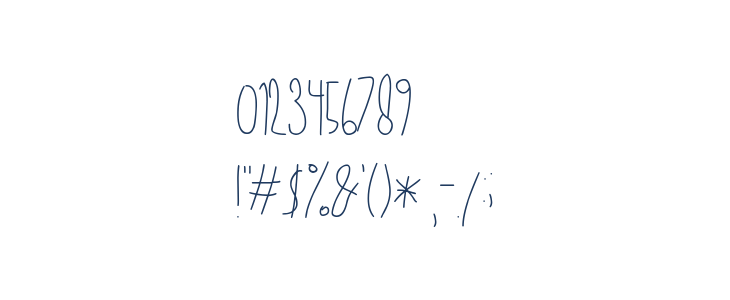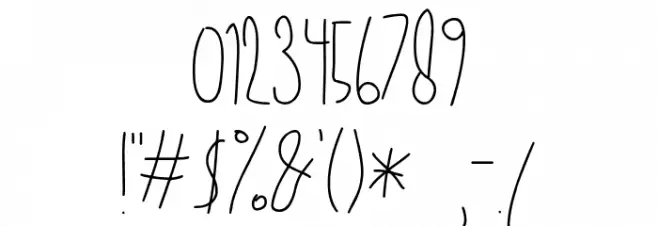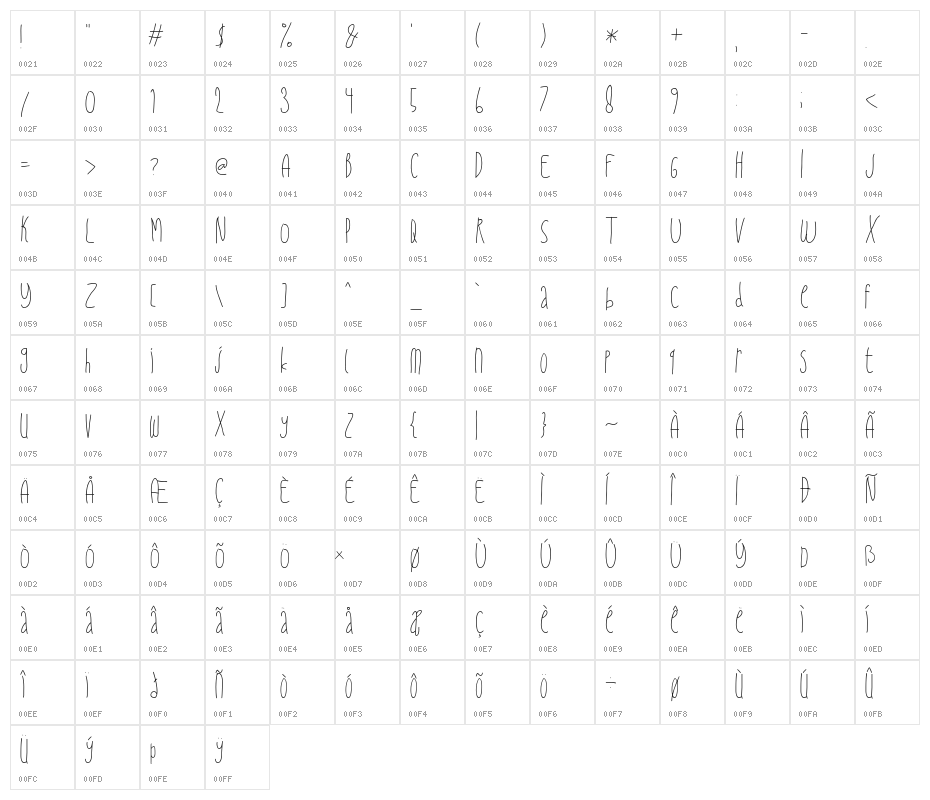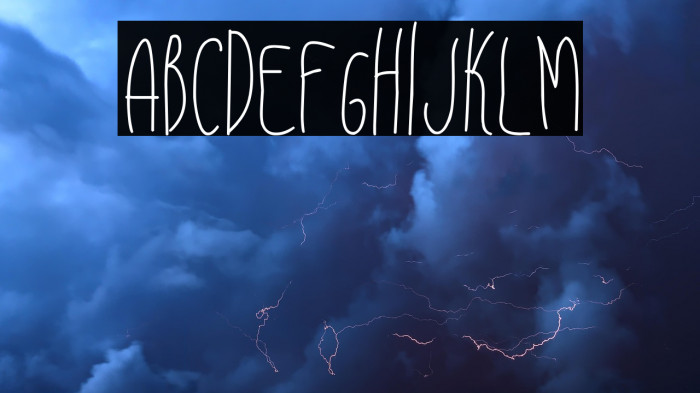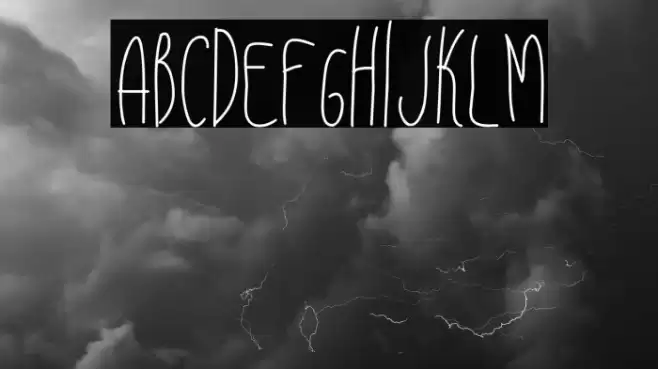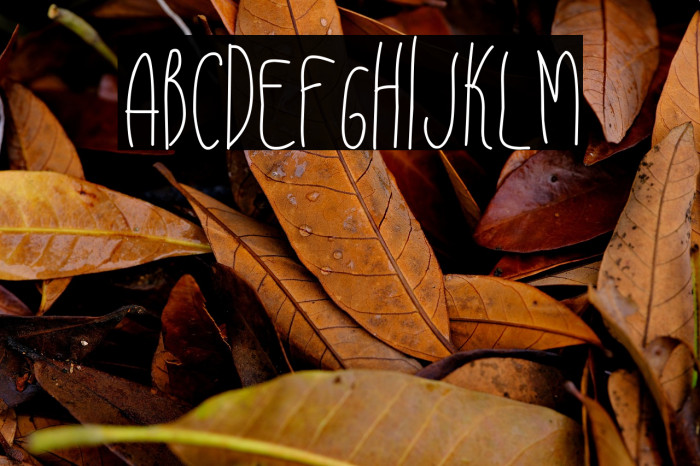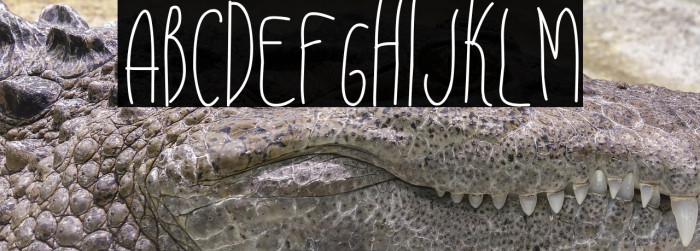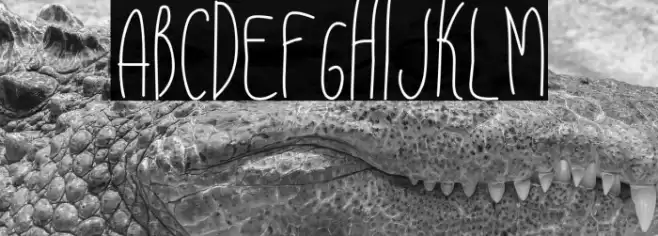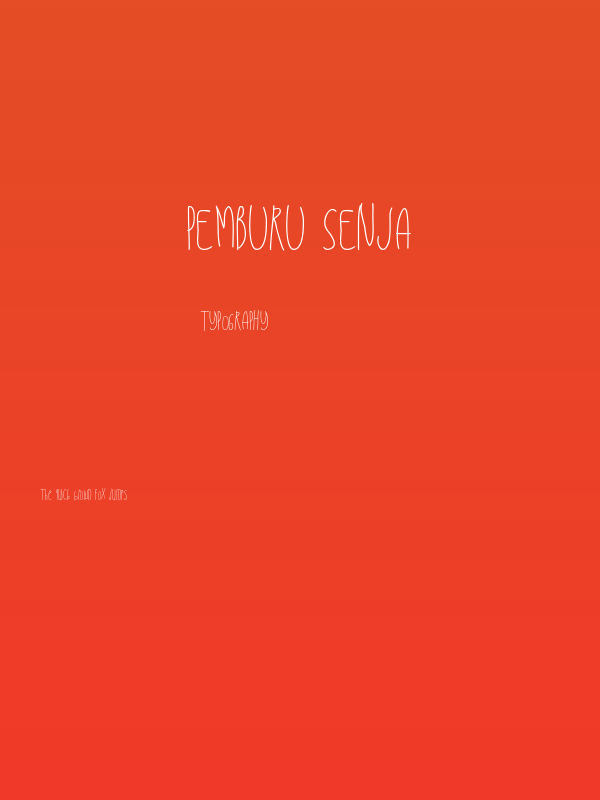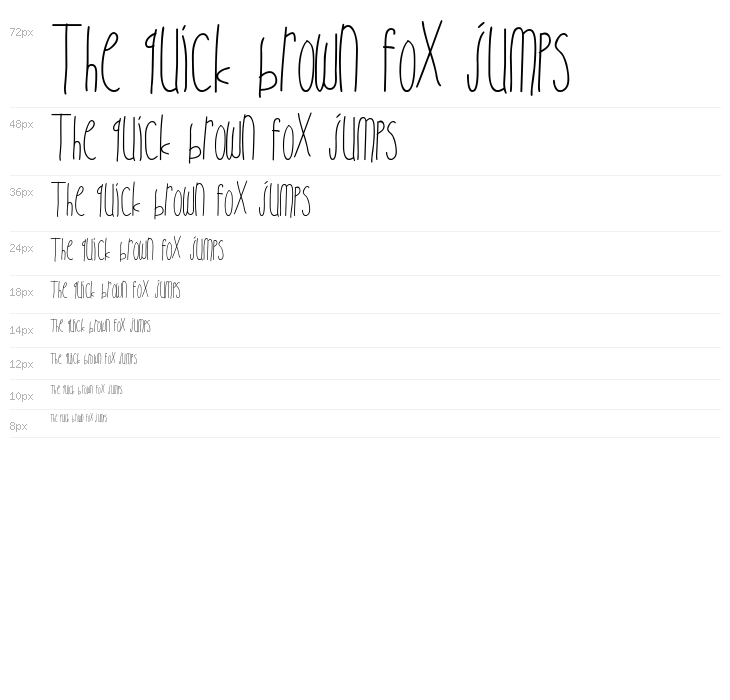
Pemburu Senja Font
Pemburu Senja Description
This font features a unique, elongated style with a playful and whimsical touch. The characters are tall and slender, with a hand-drawn appearance that gives it a casual and artistic feel. The strokes are consistent in width, providing a uniform look across all characters. The uppercase and lowercase letters maintain a cohesive style, with slight variations that add to the font's charm. The numbers and special characters are designed to match the overall aesthetic, making this font versatile for various creative projects.
| Overall Style | Playful and Artistic |
| Use Case | Logos, Posters, Artistic Projects |
| Proposed Projects | Ideal for greeting cards, children's books, playful branding, and artistic posters. |